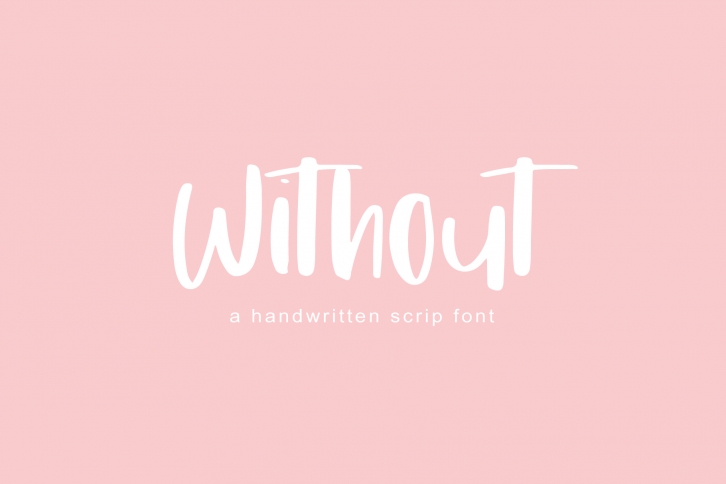
Without is a trendy and unique font with an authentic style. It was designed by Paula Type and it's a great choice for creative people who need such a font. It was released on February 28, 2019 and the file size is 18.17 MB. Without will add an organic vibe to any design idea!